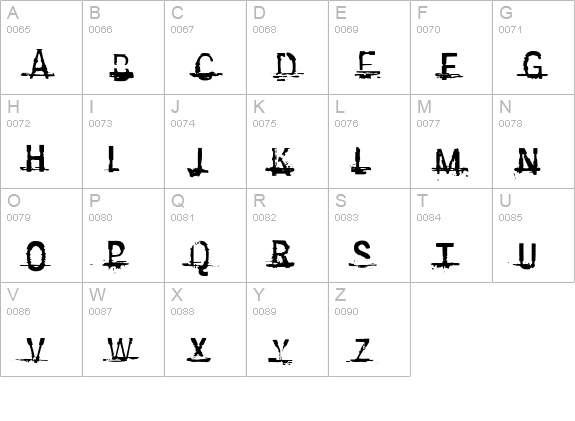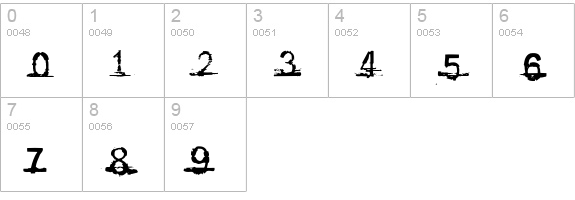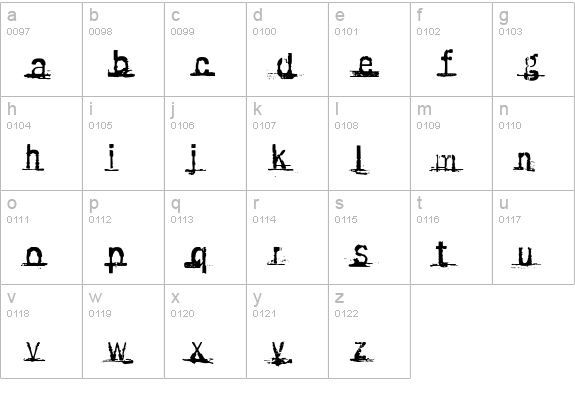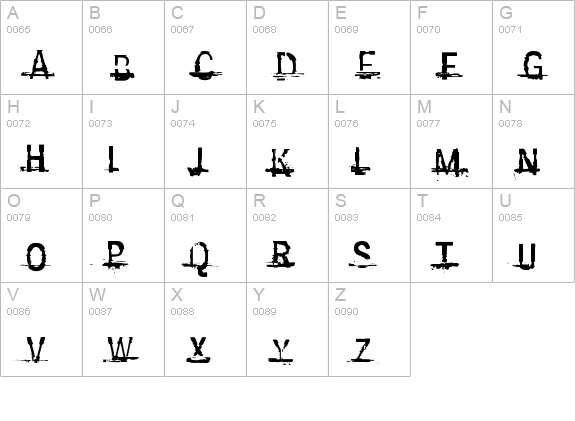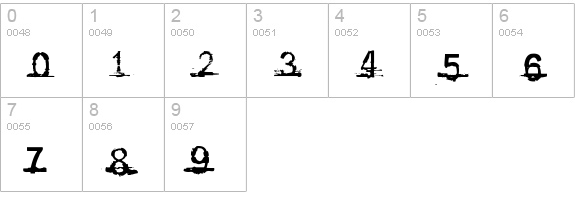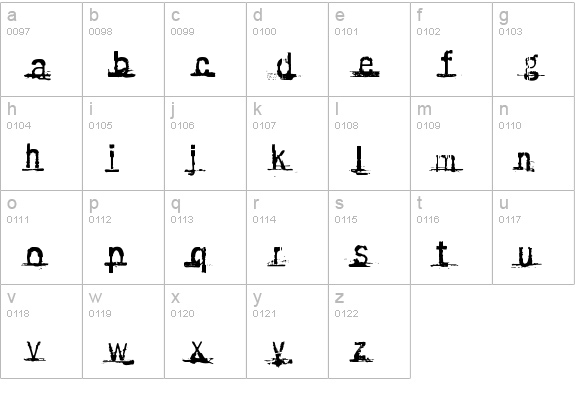
Sabotage Font Details
Introducing Sabotage font, a captivating typeface that exudes an air of mystery and intrigue. With its bold, rugged letterforms, Sabotage is perfect for creating eye-catching designs that demand attention. Whether you're designing a poster, a book cover, or a logo, this font will add a touch of edginess to your project. But what sets Sabotage font apart is not just its striking aesthetics; it's also the fact that it is completely free! Yes, you read that right. Sabotage font is freely available to download at FontsMarket.com. This means that you can elevate your designs without any cost or limitations. The versatility of Sabotage font is another reason why it's a go-to choice for designers. From vintage-inspired layouts to modern, minimalist designs, this font adapts effortlessly to various styles and themes. Whether you're aiming for a retro vibe or a contemporary look, Sabotage font will help you achieve your desired aesthetic. The bold and assertive nature of Sabotage font makes it perfect for headlines, titles, and subheadings. Its thick strokes and distinctive letter shapes make a statement, ensuring that your message stands out from the crowd. Moreover, the font's impeccable legibility ensures that your words are easily readable, guaranteeing a seamless reading experience for your audience. So, why wait? Download Sabotage font for free at FontsMarket.com and unleash your creativity. With its unique charm and endless possibilities, this font will undoubtedly elevate your designs to new heights. Whether you're a seasoned designer or just starting out, Sabotage font is a must-have in your font library. Don't miss out on this incredible opportunity to enhance your designs with a free, one-of-a-kind font.